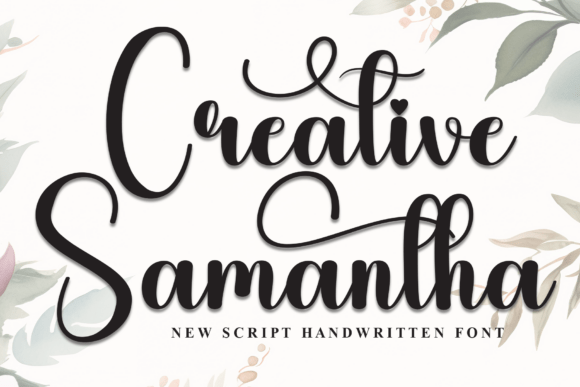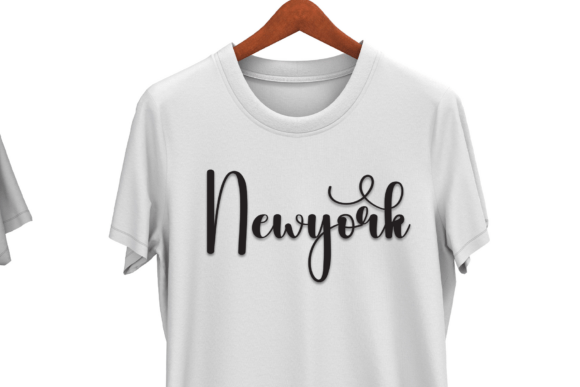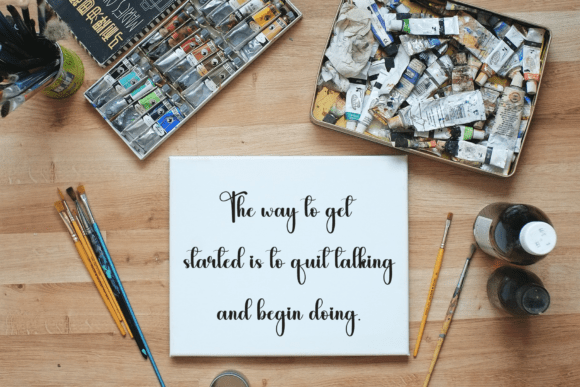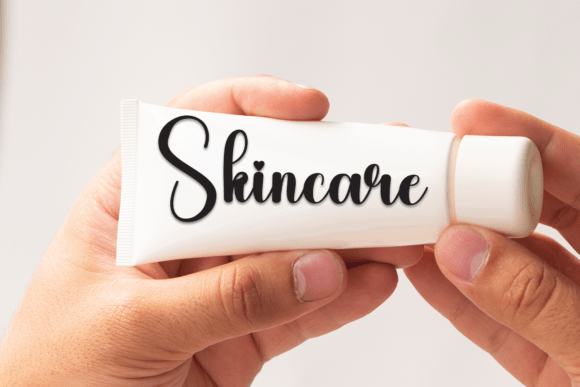
About the Creative Samantha Font
We are excited to introduce Creative Samantha Font, a must-have typeface for any serious designer. Introducing a charmingly casual handwritten display font that exudes sweetness and friendliness. With its winsome and playful attributes, it’s perfect for enhancing the allure of wedding invitations, breathes life into cards, or sprinkles a delightful dose of fun into any design. Simply put, this is your go-to font whenever you need that spark of joy in your creative work!
Creative Samantha thrives in display contexts such as logos, short headlines, and packaging where its playful charm is most effective. It adds a touch of whimsy to invitations, social media graphics, and short marketing materials. However, its casual nature makes it unsuitable for body text or lengthy paragraphs; readability suffers at smaller sizes.
Consider pairing Creative Samantha with a clean sans-serif like Lato or Open Sans for a balanced design aesthetic. For a more sophisticated feel, a classic serif font like Garamond or a slightly more geometric sans-serif such as Montserrat would create a strong contrast. Avoid pairing it with other highly decorative fonts, which would create visual clutter.
The font’s core personality is undeniably friendly and approachable, conveying a sense of youthful energy and casual elegance. It’s ideally suited to brands focused on sweetness, handcrafted goods, or businesses emphasizing a lighthearted and approachable brand identity.